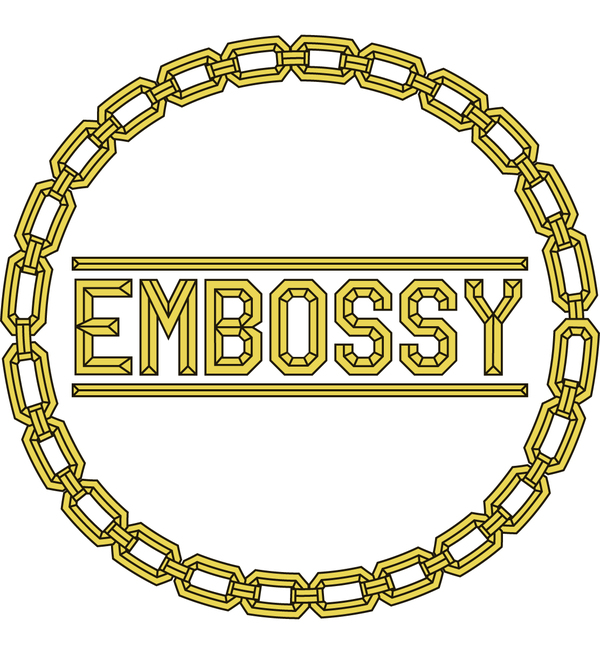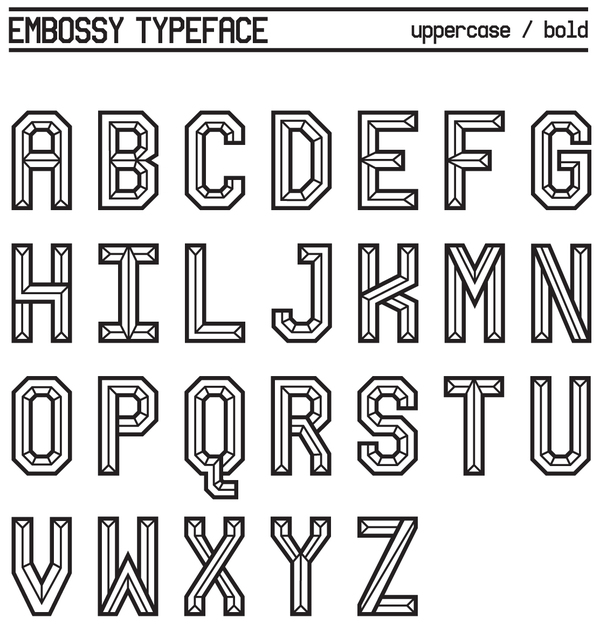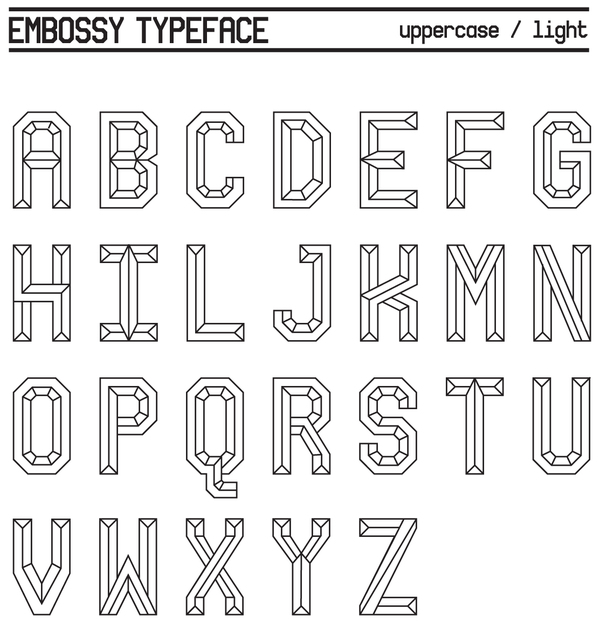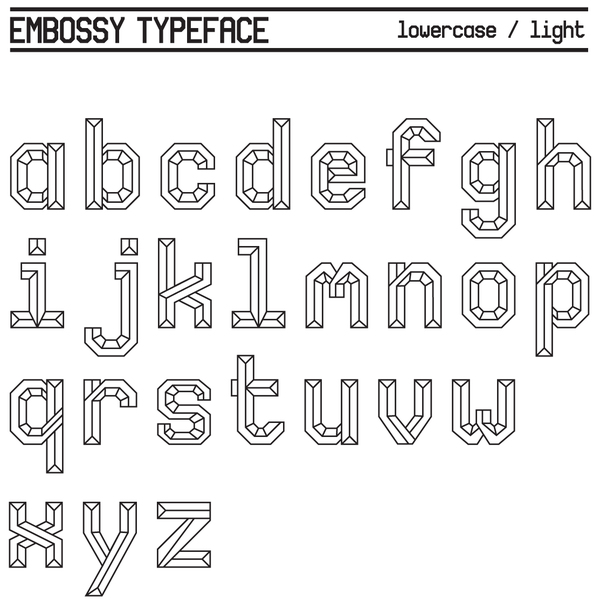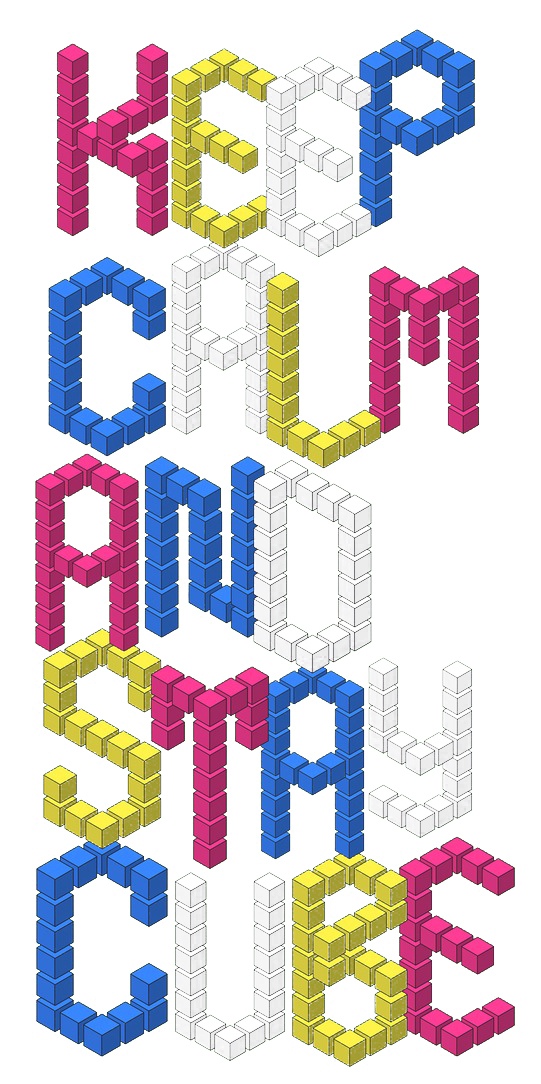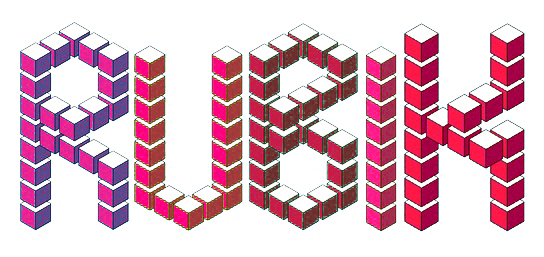
Riccardo Sabatini
Designer and digital artist in Florence, Italy. He created the ornamental caps typefaces Mekkanika (2011) and Brushwood (2011). In 2012, he added the beautiful 3d cube typeface Hexahedra and the free beveled typeface family Embossy.
In 2015, he created the typeface family Native for the graphic novel Indian Tales by Passenger Press, for cover and chapter headings. Sub-styles are Wisakedjak (alchemic), Croatoan (like wood carvings), and Wendigo.
Typefaces from 20165: Spike (a monospaced spurred typeface).